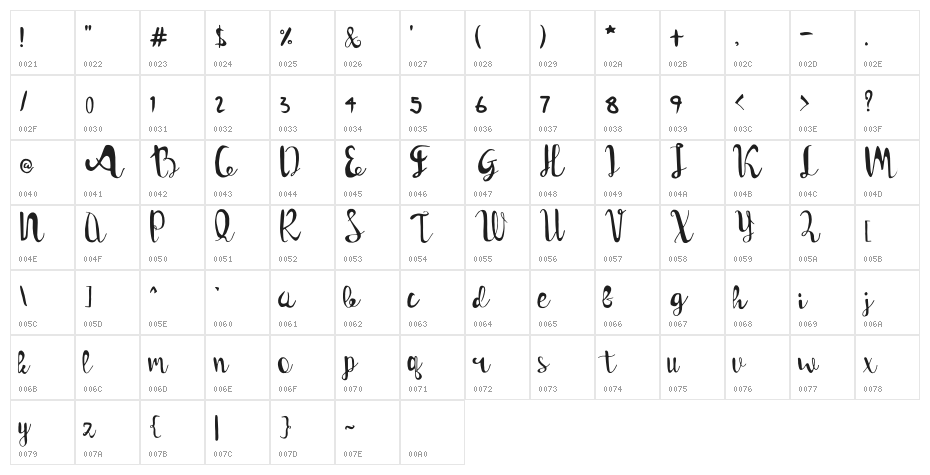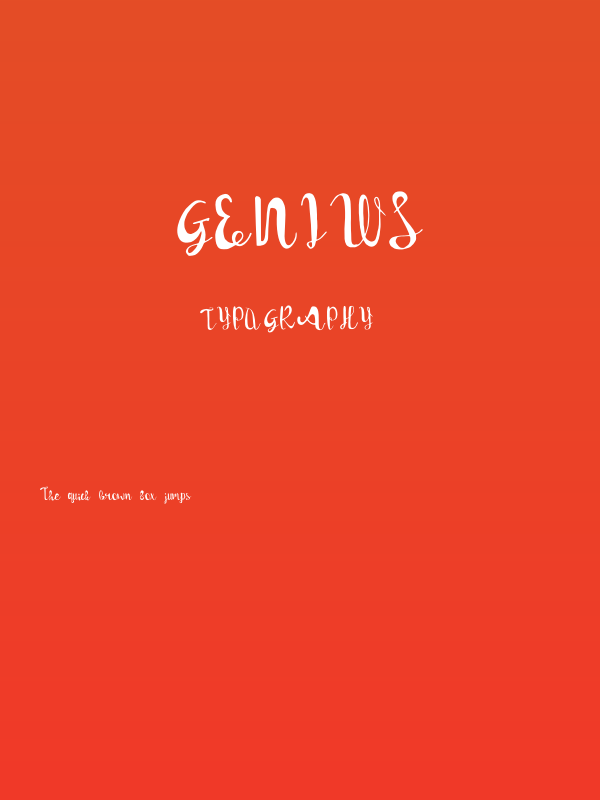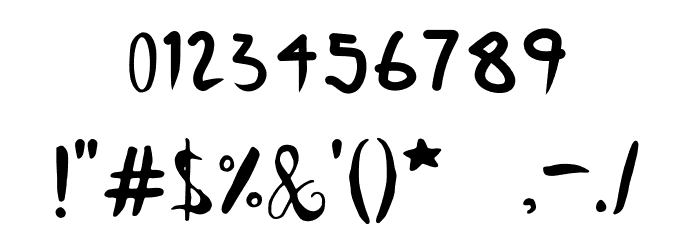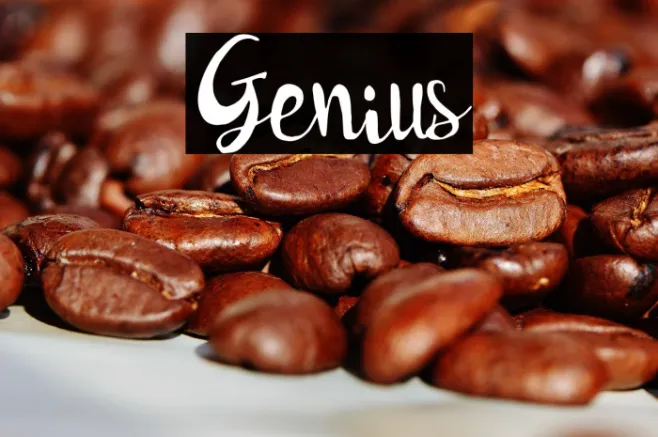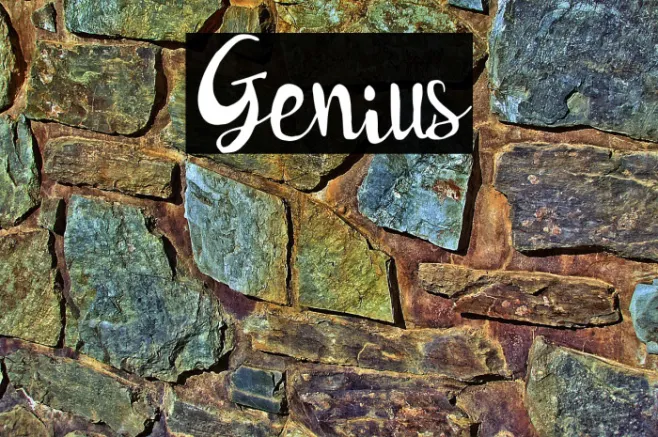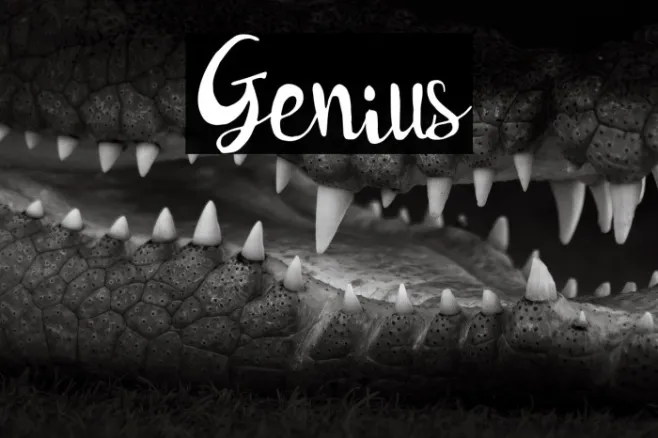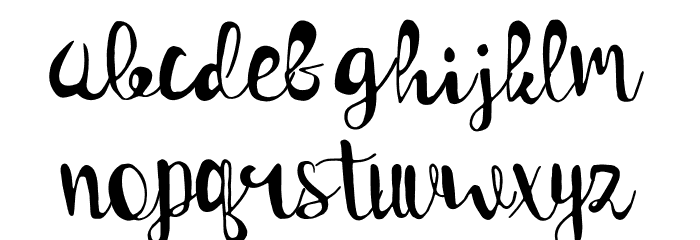
Genius Font
Genius Description
This font features a whimsical and artistic script style, characterized by its flowing and interconnected letterforms. The uppercase letters exhibit a playful elegance with exaggerated loops and swirls, while the lowercase letters maintain a consistent fluidity, enhancing the overall cohesive appearance. The numerals are crafted with a similar flair, ensuring they blend seamlessly with the alphabet. Special characters are creatively designed, adding to the font's unique personality. The strokes vary in thickness, providing a dynamic contrast that adds depth and interest. This font is ideal for projects that require a touch of creativity and charm.
| Proposed Projects | Ideal for wedding invitations, greeting cards, artistic branding, and decorative posters. |